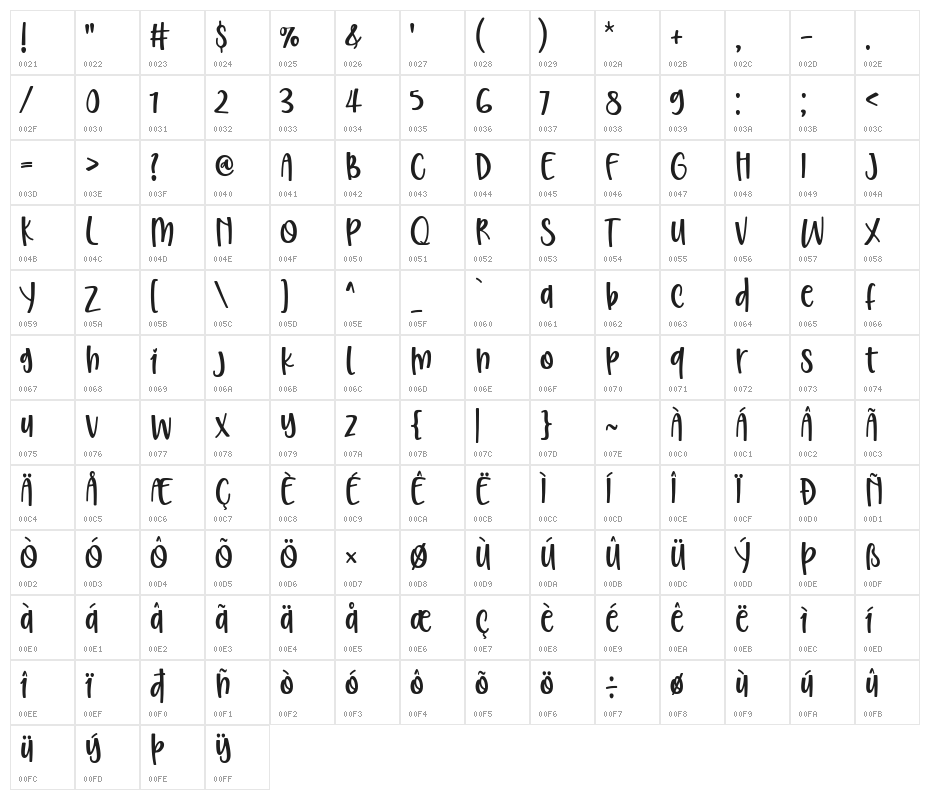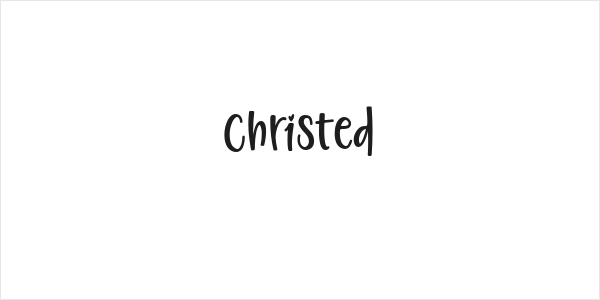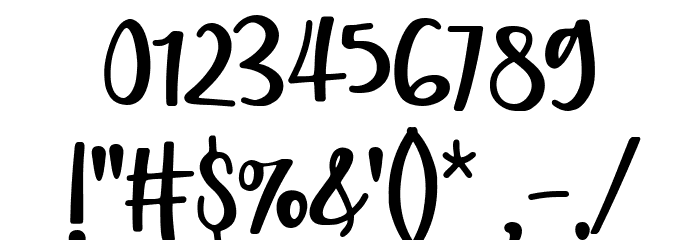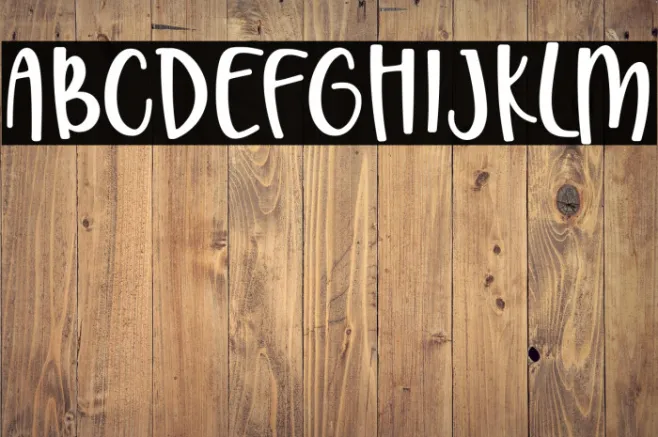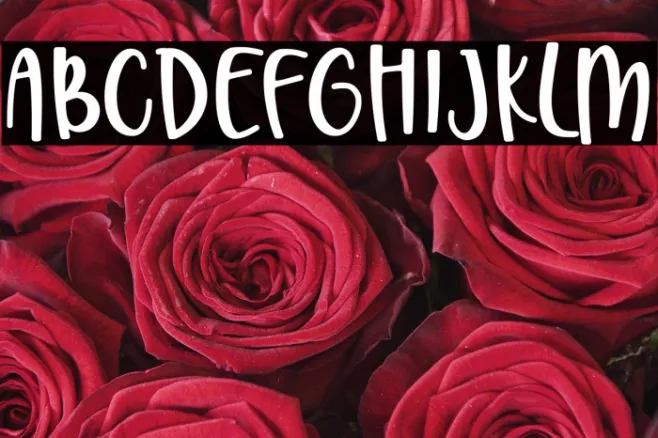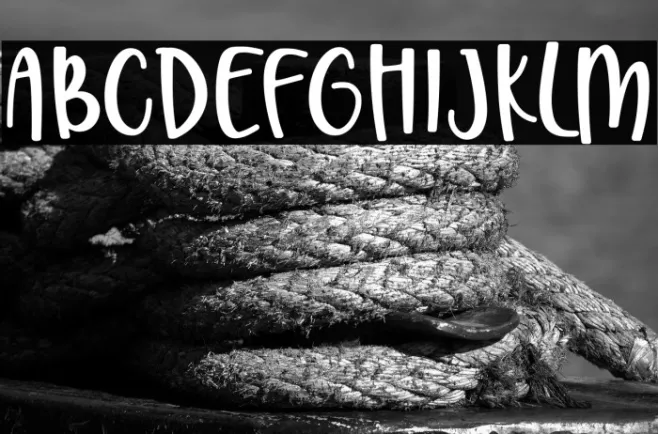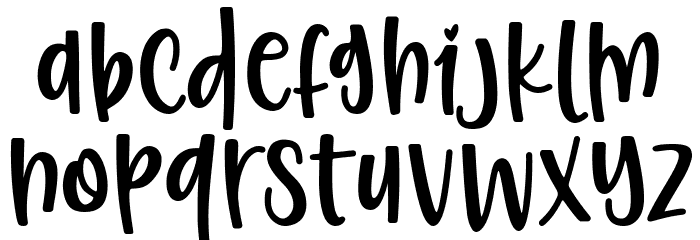
Christed Font
Christed Description
This font features a playful and whimsical handwritten style, characterized by its bold and rounded letterforms. The uppercase and lowercase letters exhibit a consistent flow with slightly exaggerated curves, giving it a friendly and approachable appearance. The numbers and special characters maintain the same lively aesthetic, ensuring uniformity across all glyphs. The strokes are thick and consistent, providing a strong visual impact while retaining a casual and informal tone. This font is ideal for projects that require a touch of personality and charm.